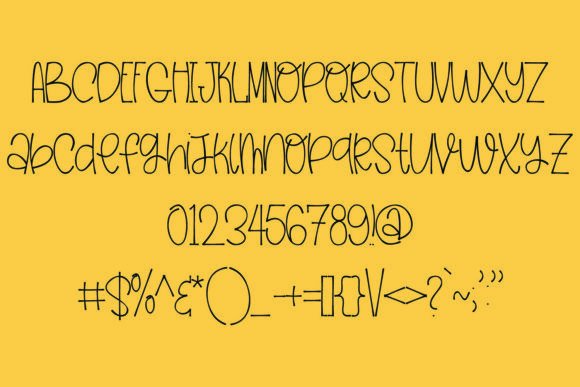
Discover the Charm of DR Beautiful Sunset Font: A Perfect Addition to Your Design Arsenal
Are you a designer, crafter, or DIY enthusiast looking for a font that can add a touch of warmth and personality to your projects? Look no further than the DR Beautiful Sunset font. This adorable handwritten font is designed to bring a smile to your face and a dash of casual charm to your designs. In this article, we’ll dive into the world of DR Beautiful Sunset and explore its features, uses, and benefits.
What is DR Beautiful Sunset Font?
DR Beautiful Sunset is a cute and friendly handwritten font that is perfect for creating a wide range of projects. Its casual and approachable style makes it an excellent choice for designs that require a personal touch. Whether you’re working on a tee shirt, coffee mug, digital planner, or greeting card, this font is sure to add a touch of whimsy and charm.
Key Features of DR Beautiful Sunset Font
- Cute and Friendly Design: The DR Beautiful Sunset font features a playful and approachable design that is sure to capture the hearts of your audience.
- Handwritten Style: The font’s handwritten style gives it a personal and organic feel that is perfect for creating unique and eye-catching designs.
- Casual Charm: The font’s casual charm makes it an excellent choice for designs that require a relaxed and friendly vibe.
- Versatile: DR Beautiful Sunset is a versatile font that can be used for a wide range of projects, from tee shirts to digital planners.
Uses of DR Beautiful Sunset Font
The DR Beautiful Sunset font is perfect for a variety of projects, including:
- Tee Shirts and Apparel: Add a touch of personality to your tee shirts and apparel with this adorable font.
- Coffee Mugs and Ceramics: Create unique and eye-catching coffee mugs and ceramics with DR Beautiful Sunset.
- Digital Planners and Journals: Add a personal touch to your digital planners and journals with this charming font.
- Greeting Cards and Stationery: Create beautiful and heartfelt greeting cards and stationery with DR Beautiful Sunset.
Benefits of Using DR Beautiful Sunset Font
Using DR Beautiful Sunset font offers a range of benefits, including:
- Unique and Eye-Catching Designs: The font’s unique and playful design is sure to capture the attention of your audience.
- Easy to Read and Understand: The font’s clear and readable design makes it easy for your audience to read and understand your message.
Tips for Using DR Beautiful Sunset Font
Here are some tips for using DR Beautiful Sunset font:
- Pair it with Other Fonts: Experiment with pairing DR Beautiful Sunset with other fonts to create unique and eye-catching designs.
- Use it for Headings and Titles: The font’s playful design makes it perfect for headings and titles.
- Add Color and Texture: Add color and texture to your designs to make them more visually appealing.
| Font Name | Dr Beautiful Sunset Font |
| Author | Designs by Danielle FL |
In conclusion, DR Beautiful Sunset font is a charming and versatile font that is perfect for designers, crafters, and DIY enthusiasts. Its cute and friendly design, casual charm, and versatility make it an excellent choice for a wide range of projects. With its ease of use, cost-effectiveness, and time-saving benefits, DR Beautiful Sunset is a must-have font for anyone looking to add a touch of personality to their designs.